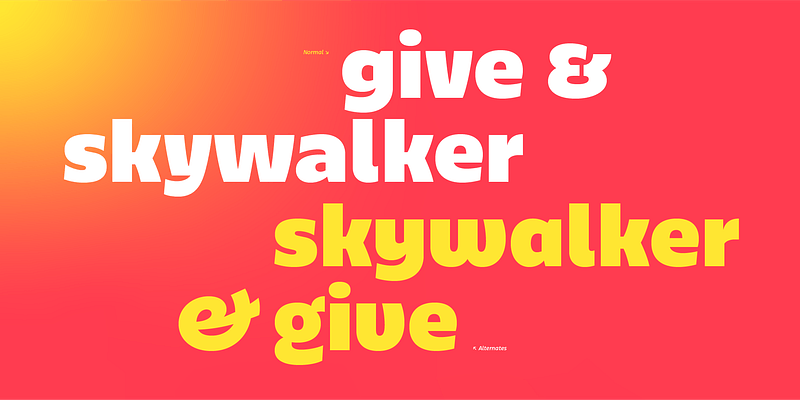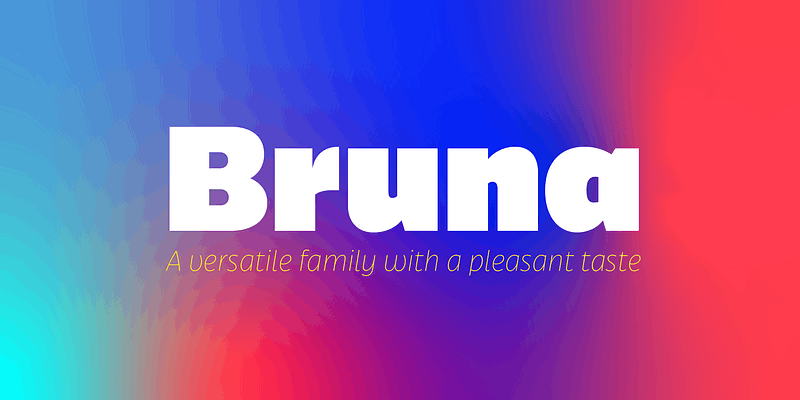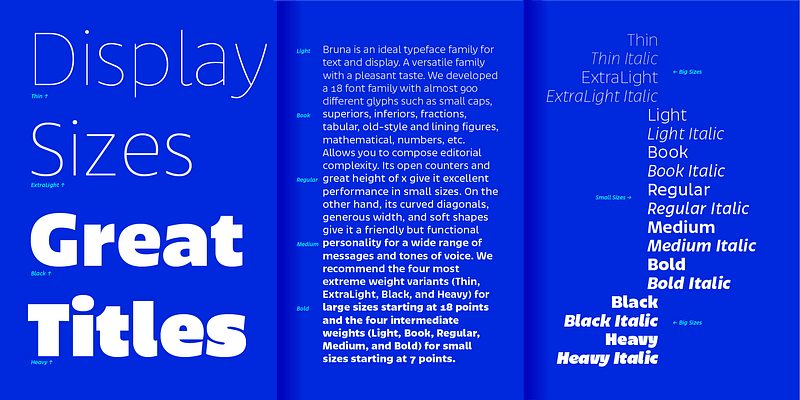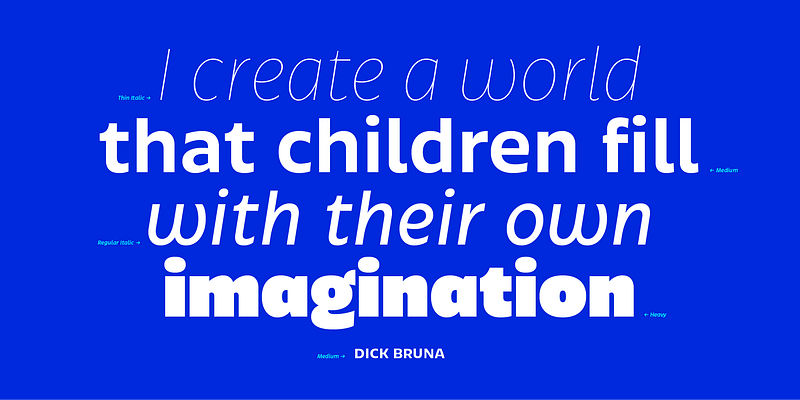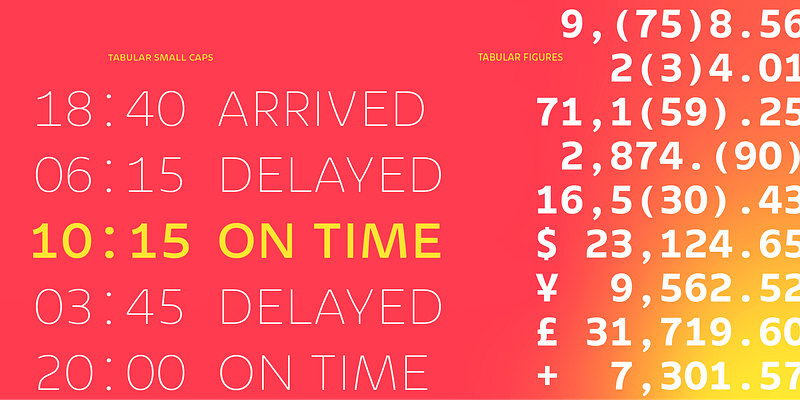
Bruna is an ideal typeface family for text and display. A versatile family with a pleasant taste. We developed a 18 font family with almost 900 different glyphs such as small caps, superiors, inferiors, fractions, tabular, old-style and lining figures, mathematical, numbers, etc. Allows you to compose editorial complexity.
Its open counters and great height of x give it excellent performance in small sizes. On the other hand, its curved diagonals, generous width, and soft shapes give it a friendly but functional personality for a wide range of messages and tones of voice.
Lechuga Type
Lechuga Type is a type design studio based in Quéretaro, Mexico. It specializes in custom, retail, and logos for brands and companies.
Although Antonio Lechuga released his first retail typeface family in 2016, he did not launch Luchuga Type as an independent foundry until late 2021. The foundry publishes a retail typeface catalog and develops custom typefaces for clients such as LaSalle University, Gatopardo Magazine, Agua Planeta Azul, América Móvil, and others.